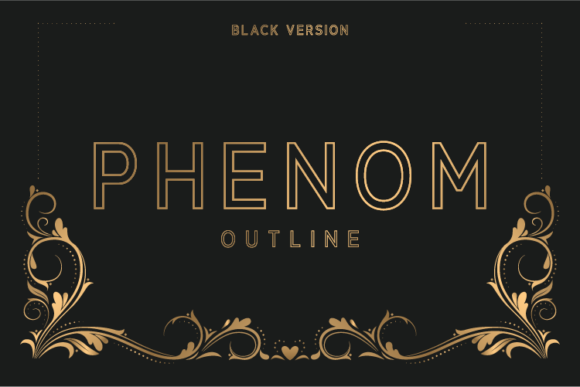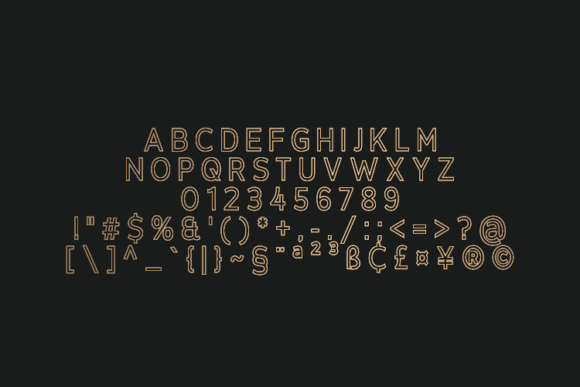
Phenom Outline Black Font
About the Phenom Outline Black Font
Welcome to the world of Phenom Outline Black Font, a typeface that will inspire your next great project. Phenom is a fancy, contemporary sans serif font. This amazing font includes a regular, and outline version It will complement any design need perfectly with its perfectly balanced mix of the smooth and sharp!
Phenom Outline Black excels in headline applications, logos, and short, impactful text for branding projects or posters. Its strong outlines create a bold, memorable presence. Avoid using it for body copy or lengthy text; the outlined forms can become visually fatiguing at smaller sizes.
The font’s personality is contemporary and bold, leaning toward a sophisticated feel. It works particularly well for brands projecting confidence and modernity. Pair Phenom Outline Black with a clean sans-serif like Lato for body text or a more delicate script font like Great Vibes for added contrast and visual interest, depending on the desired level of formality.
Consider pairing it with a geometric sans-serif for a modern, minimalist aesthetic or a classic serif like Playfair Display for a more traditional yet striking combination. This will create visual hierarchy and balance the bold outline.
Phenom Outline Black Font Usage Examples
Phenom Outline Black Font Example